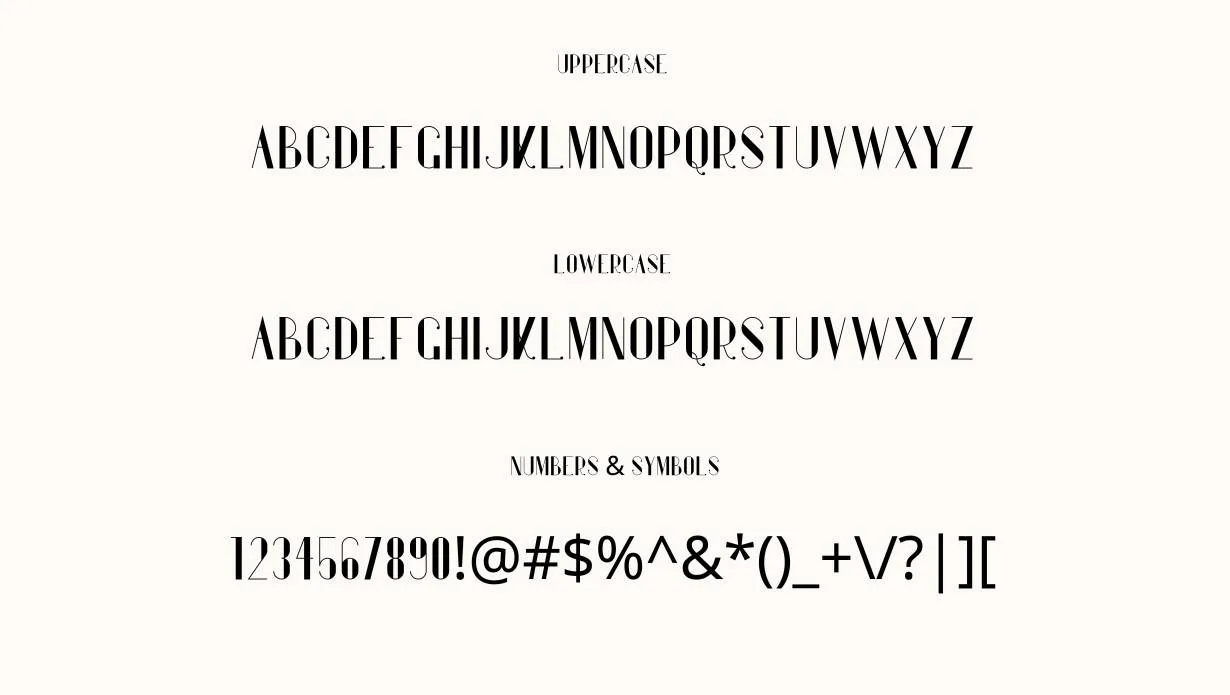
For those who want to elevate their projects with a touch of sophistication, Gentleman Font is the perfect choice. Its timeless charm and refined style make it a top pick for those seeking elegance without sacrificing readability. Discover the perfect balance between elegance and clarity with Gentleman Font.
The moderate weight and medium width make it versatile for formal invitations, business presentations, or any design where a polished and professional look is essential. Technically, Gentleman Font showcases meticulous craftsmanship, ensuring each letter maintains a sense of classic grace.
| Name | Gentleman Font |
| Designer | Juraj Chrastina |